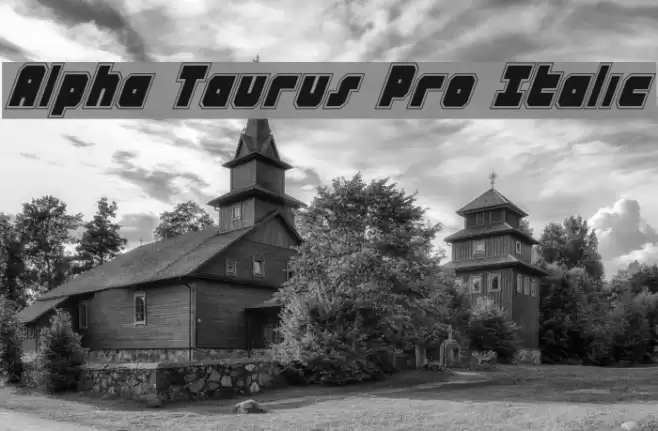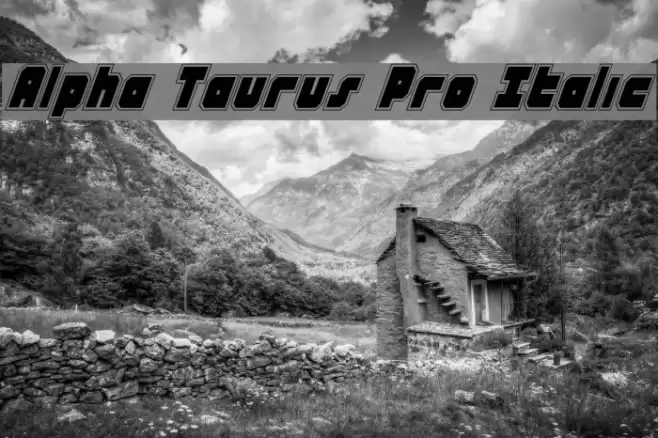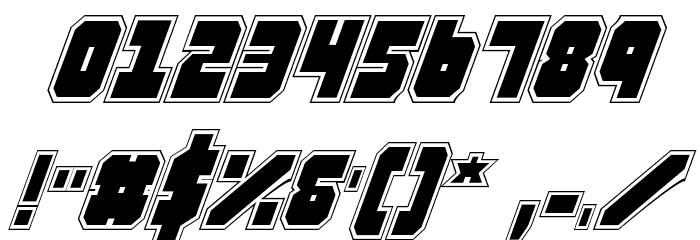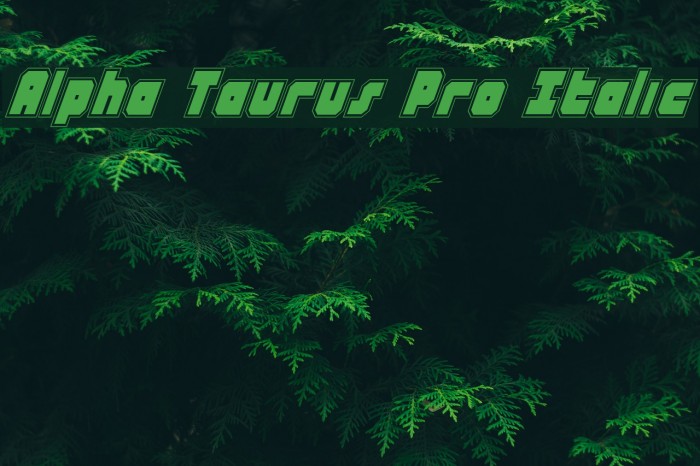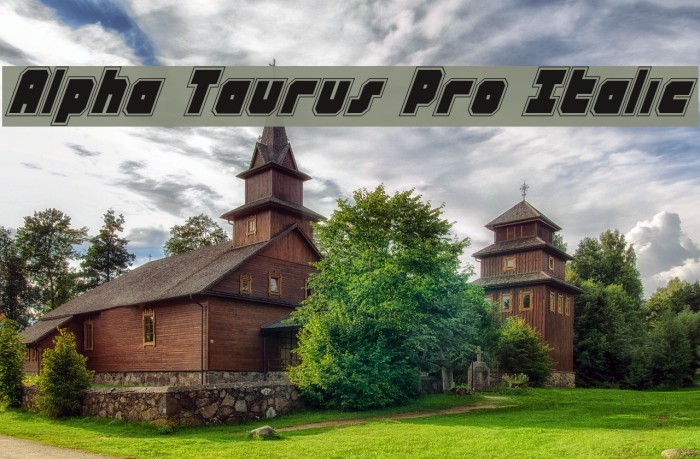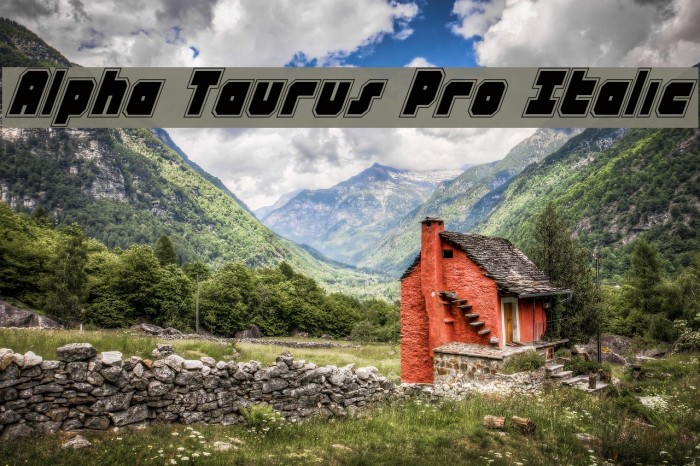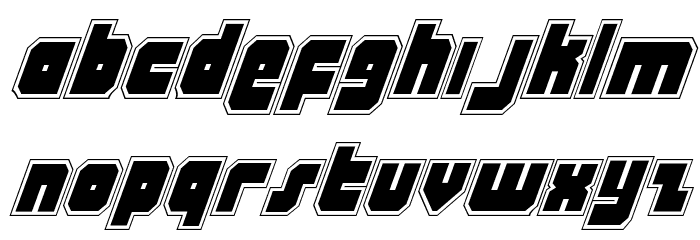
Alpha Taurus Pro Italic Font
Alpha Taurus Pro Italic Description
This font features a bold, italicized style with a strong geometric influence. The letters are characterized by sharp angles and a three-dimensional effect, created by a thick outline that gives depth. The uppercase and lowercase letters maintain a consistent design, with the lowercase being slightly more compact. Numbers and special characters follow the same aesthetic, ensuring uniformity across all elements. The font's dynamic and futuristic appearance makes it stand out, ideal for projects that require a modern and edgy look.
Bold, italicized font with a geometric, three-dimensional style from Sci-fi fonts.
- Proposed Projects: Ideal for sports branding, video game titles, posters, and dynamic advertising campaigns.